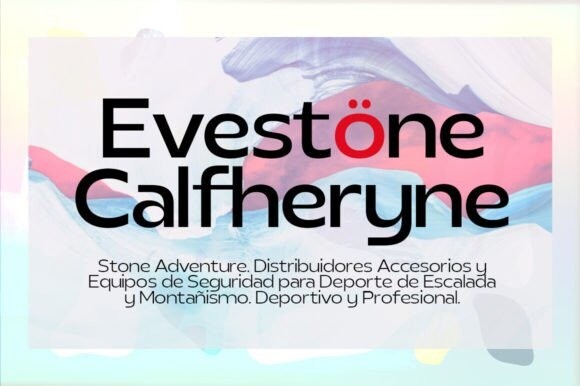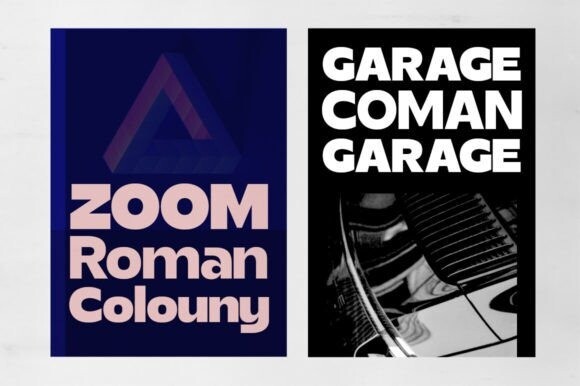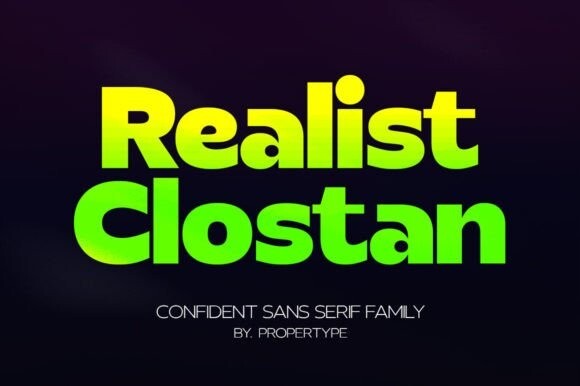
Realist Clostan Font Family
Designer: Propertype
Realist Clostan Font Family is an elegant contrasting Serif typeface. It offers a modern take on an old classic genre, confidently playing with extreme bold strokes and whispered thin curves, but ditching the sans, embedding it firmly in a modern design. It is a careful collaboration of beauty and function.